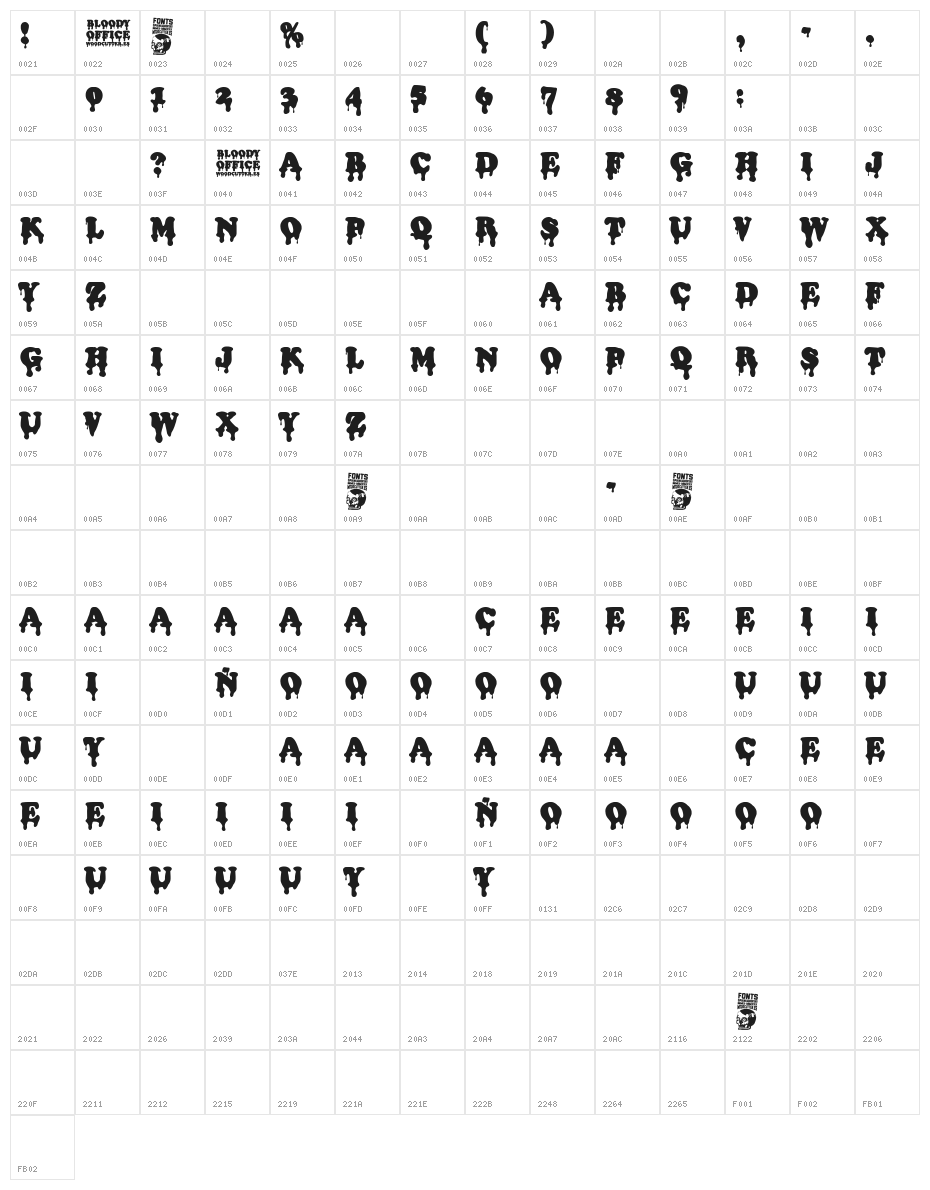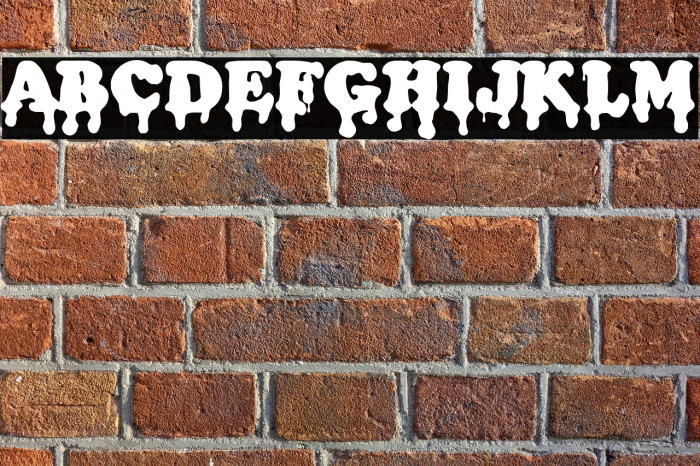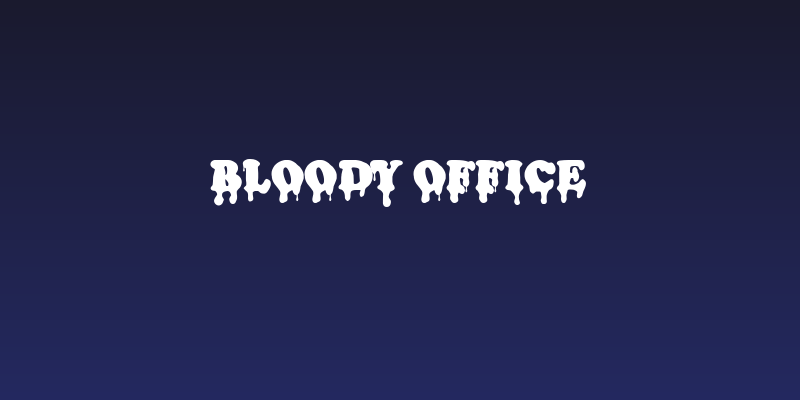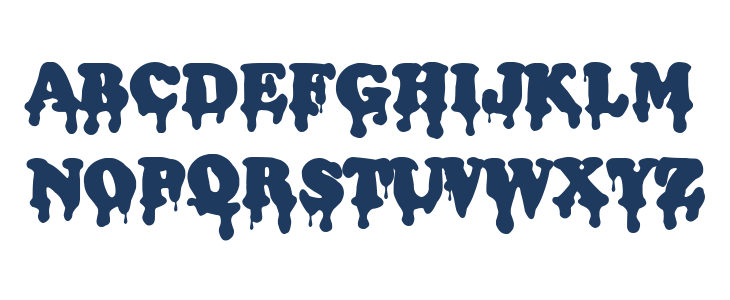
Bloody Office Font
Bloody Office Description
This font features a dramatic and eerie design, with each character appearing as if it's dripping or melting, reminiscent of horror or Halloween themes. The bold, thick strokes create a strong visual impact, making it ideal for attention-grabbing designs. The characters have a consistent dripping effect that adds a sense of movement and fluidity. The overall style is highly decorative, with a playful yet sinister vibe that can evoke a sense of mystery or fear. This font is perfect for themed events, posters, or any project requiring a spooky or unconventional touch.